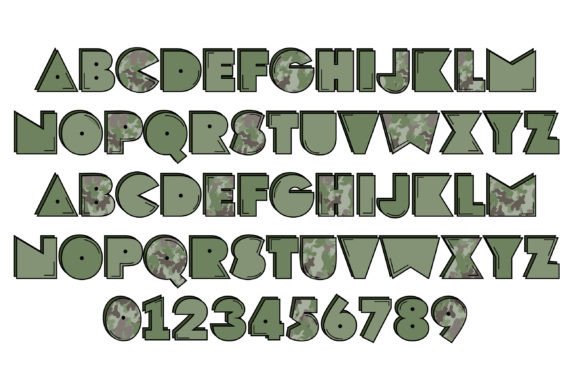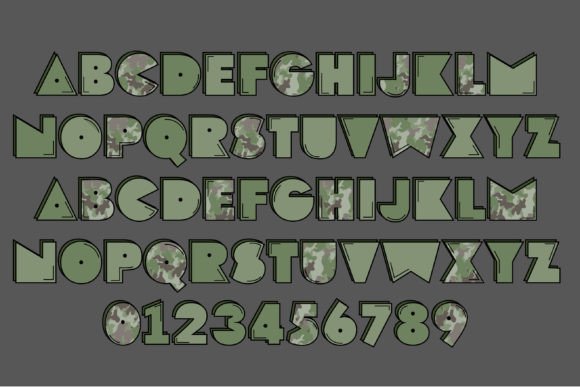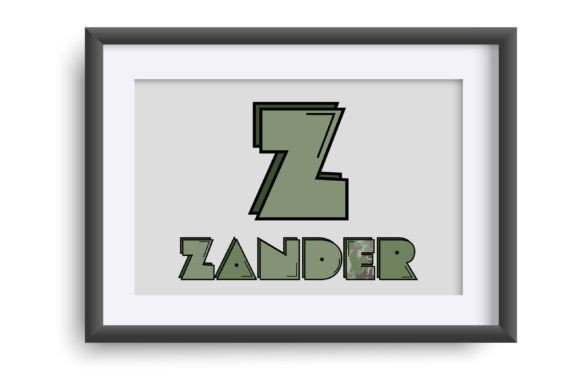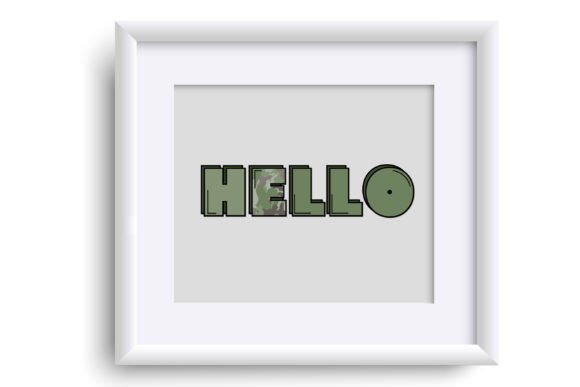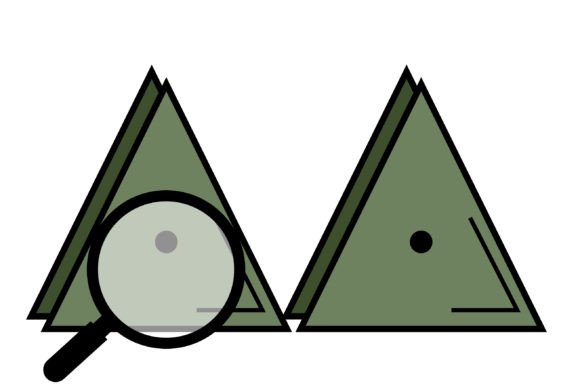
Introduction to Pogbog Font
This full-color font features vectorized, video game style lettering in a military color palette and added camouflaged print.
Key Features of Pogbog Font